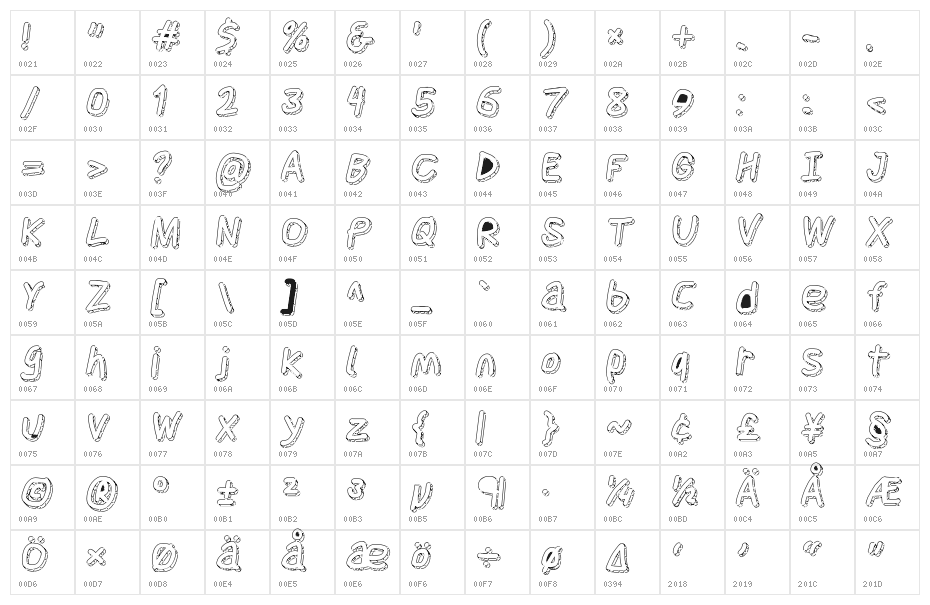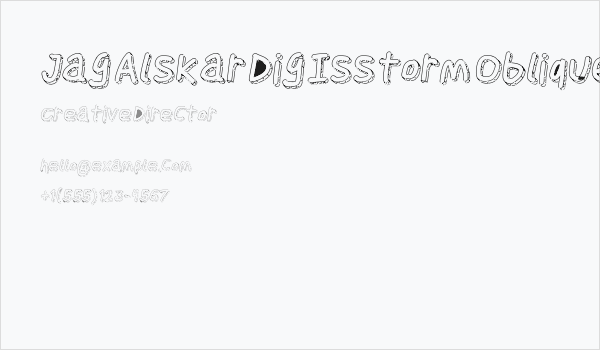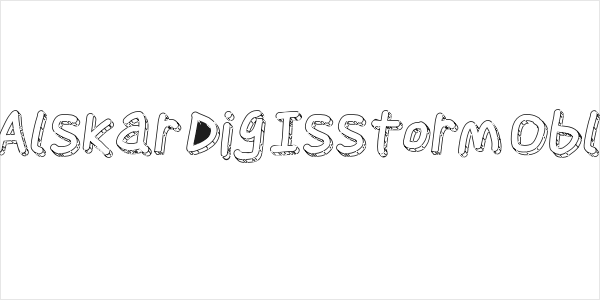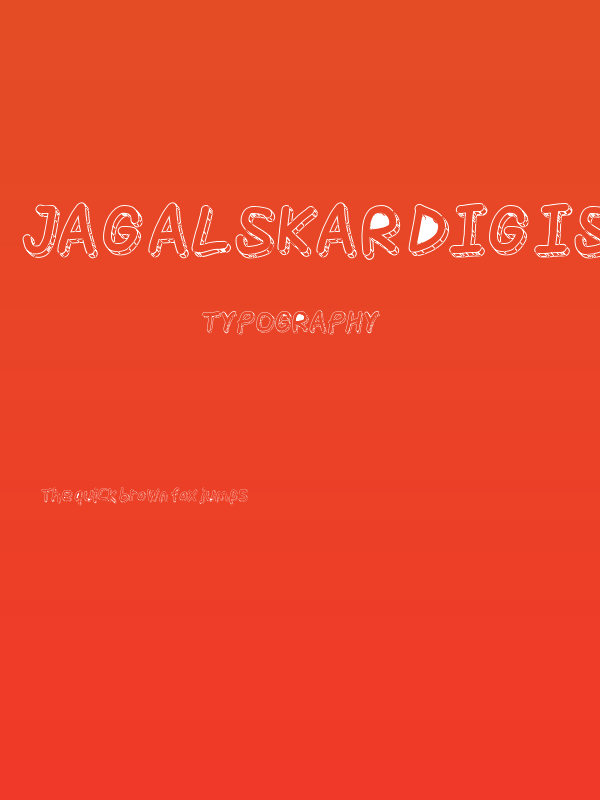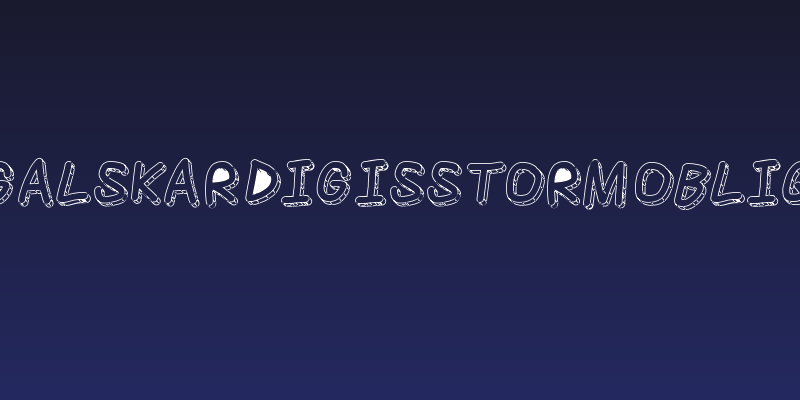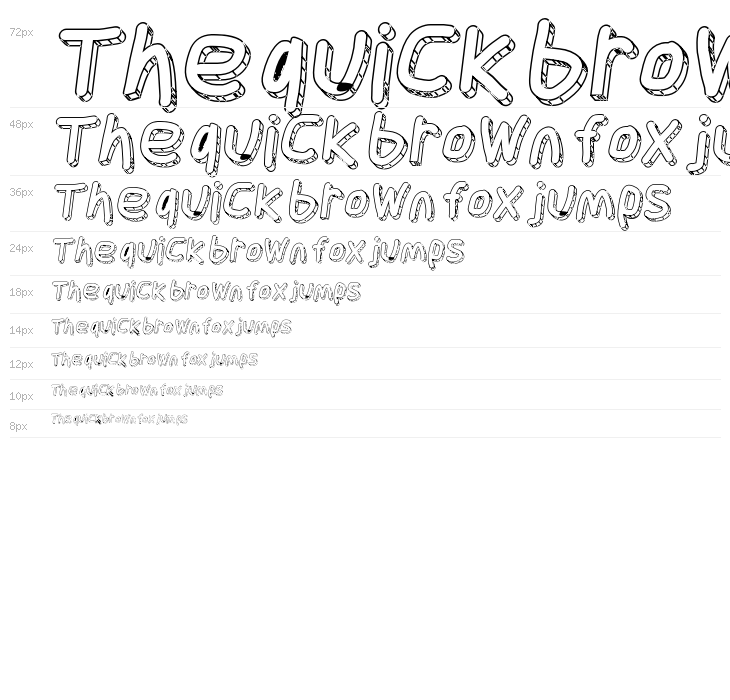
Jag Alskar Dig Isstorm Oblique Font
Jag Alskar Dig Isstorm Oblique Description
This font features a playful and whimsical design, characterized by its bold, hand-drawn appearance. Each letter is outlined with a thick, uneven stroke, giving it a textured and sketch-like quality. The letters are slightly slanted, adding a dynamic and informal feel. The font includes both uppercase and lowercase letters, numbers, and a variety of special characters, all maintaining the same quirky style. The overall look is reminiscent of doodles or graffiti, making it ideal for creative and informal projects.
| Overall Style | Whimsical, Playful, Informal |
| Use Case | Headlines, Posters, Creative projects |
| Proposed Projects | Ideal for children's books, comic strips, playful branding, and creative posters. |